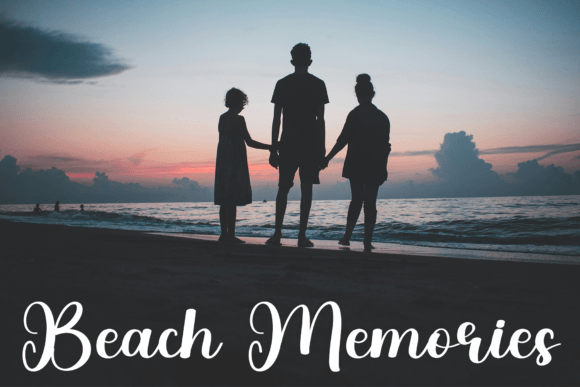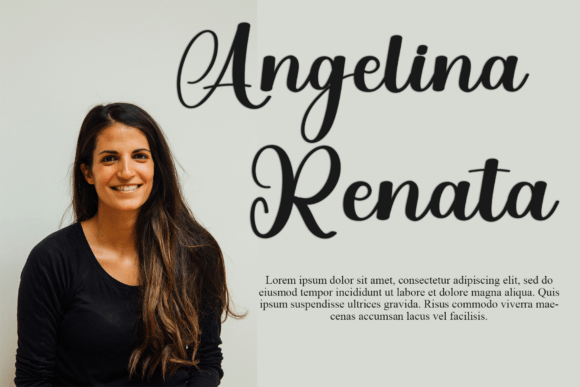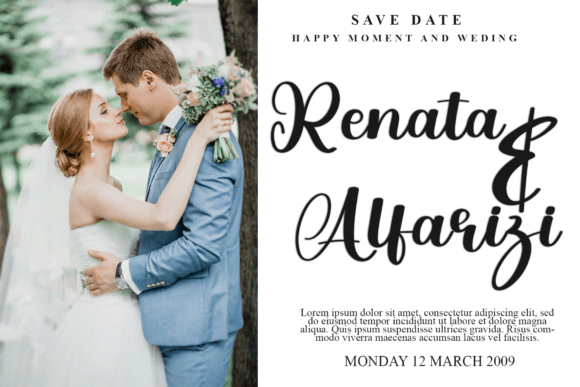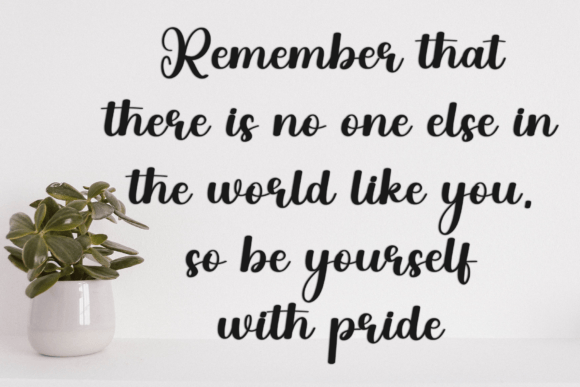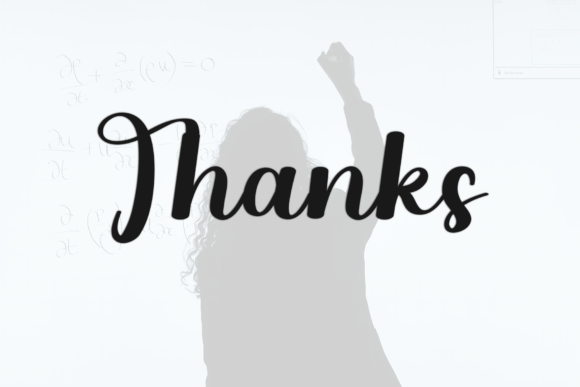
Introducing Activity Font: Elevate Your Designs with Elegant Handwriting
Are you a designer, crafty DIY enthusiast, or social media influencer looking to add a touch of sophistication to your creative projects? Look no further than Activity Font, a beautiful, handcrafted handwriting font designed to bring a dash of elegance to your designs. In this article, we’ll dive into the world of Activity Font, exploring its features, benefits, and uses, as well as provide tips on how to make the most of this stunning font.
What is Activity Font?
Activity Font is a carefully crafted, magical handwriting font that is sure to captivate your audience with its unique charm. This exquisite font is perfect for anyone seeking to add a personal touch to their designs, whether it’s for Instagram posts, DIY projects, or professional branding. With Activity Font, you can transform your creative ideas into stunning works of art that exude elegance and sophistication.
Key Features of Activity Font
- Handwritten elegance: Activity Font boasts a beautiful, handwritten style that adds a touch of warmth and personality to your designs.
- Versatility: This font is perfect for a wide range of creative projects, from Instagram posts and stories to DIY crafts, logos, and branding.
- High-quality design: Each letter and character has been carefully crafted to ensure a high level of quality and consistency.
Uses for Activity Font
Activity Font is an incredibly versatile font that can be used in a variety of creative projects. Here are a few ideas to get you started:
- Instagram and social media: Add a touch of elegance to your Instagram posts, stories, and bio with Activity Font.
- DIY projects: Use Activity Font to create beautiful, handmade cards, invitations, and decorations.
- Branding and logos: Activity Font is perfect for creating unique and memorable logos, business cards, and letterheads.
- Crafting and scrapbooking: Add a personal touch to your scrapbooking and crafting projects with Activity Font.
Tips for Using Activity Font
To make the most of Activity Font, here are a few tips to keep in mind:
- Experiment with colors: Activity Font looks stunning in a variety of colors, so don’t be afraid to experiment and find the perfect hue for your design.
- Mix and match: Combine Activity Font with other fonts and design elements to create a unique and eye-catching design.
- Pay attention to spacing: Make sure to adjust the spacing between letters and words to ensure a clean and elegant look.